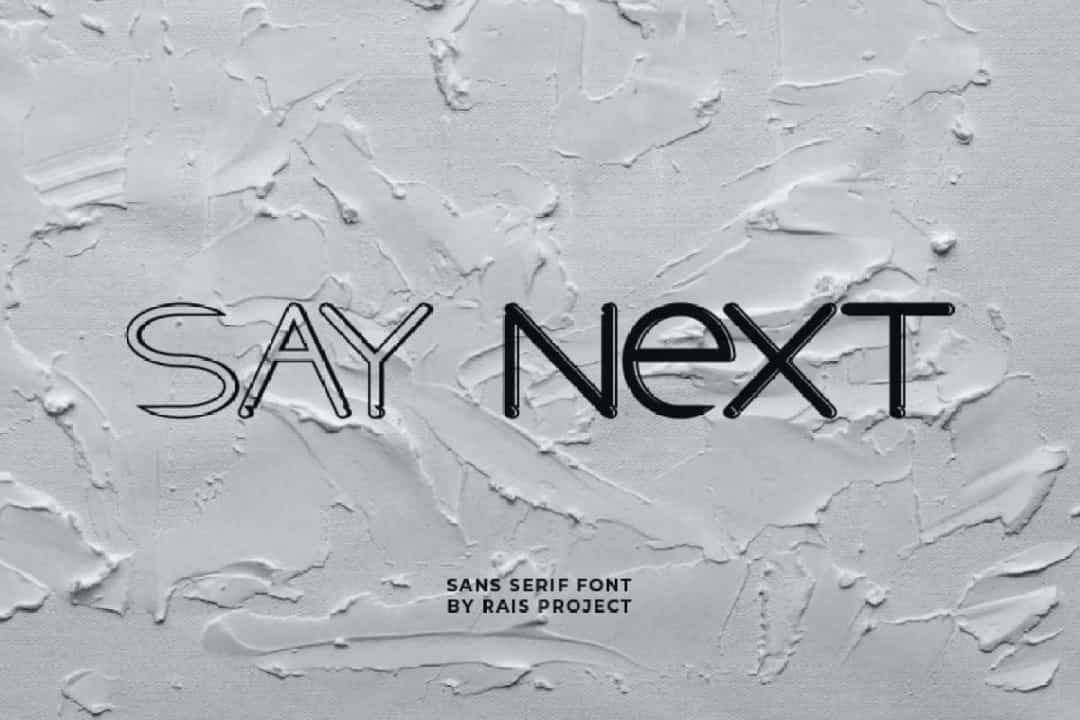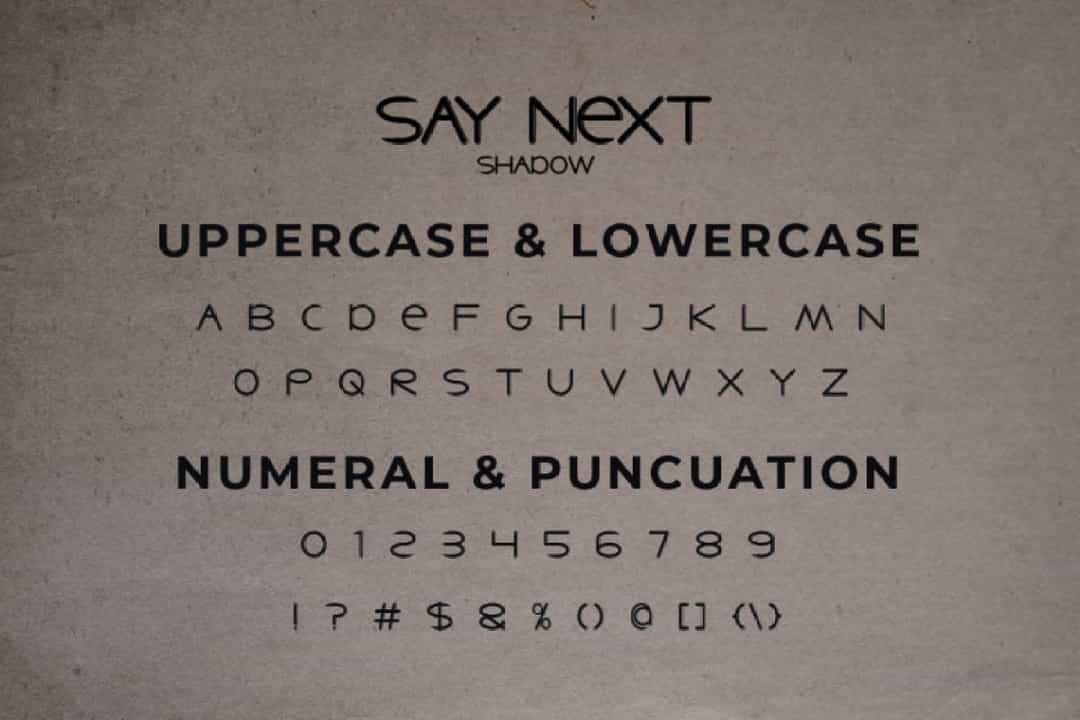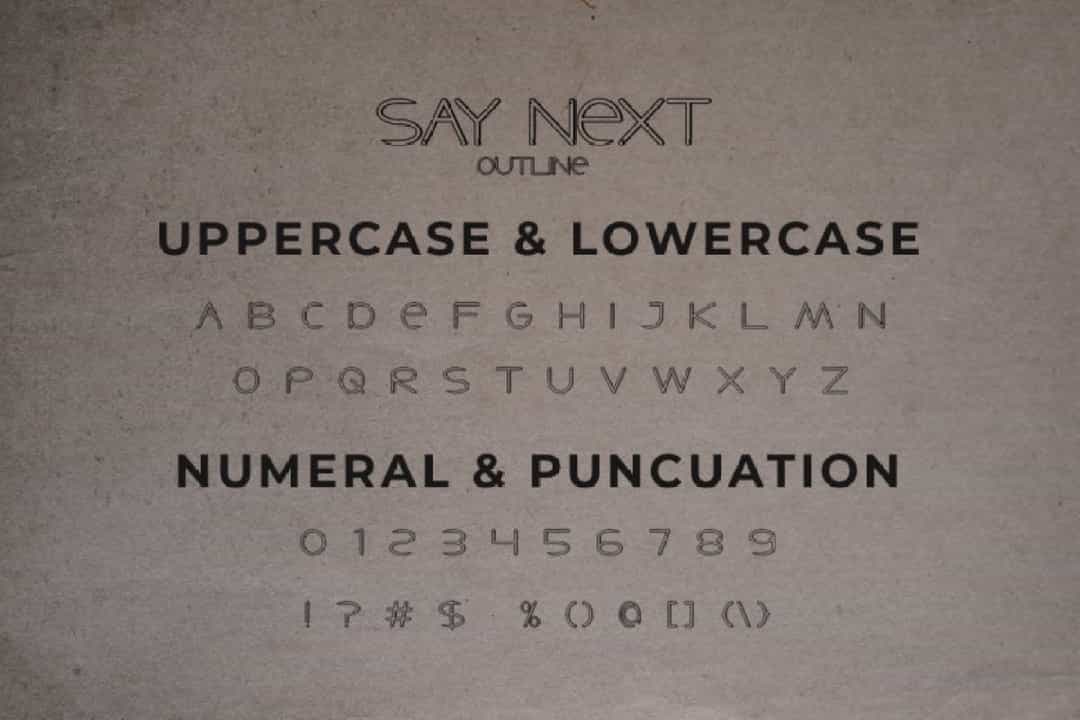
Say Next Font is an eye-catching Sans Serif typeface family designed by RaisProject that draws inspiration from modern life’s movement and bustle, making for a stylish yet trendy design. As one of their newest typeface offerings available to the market today.